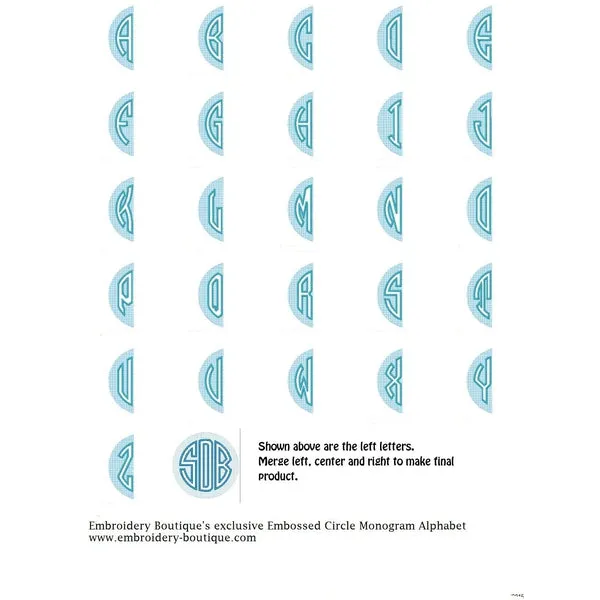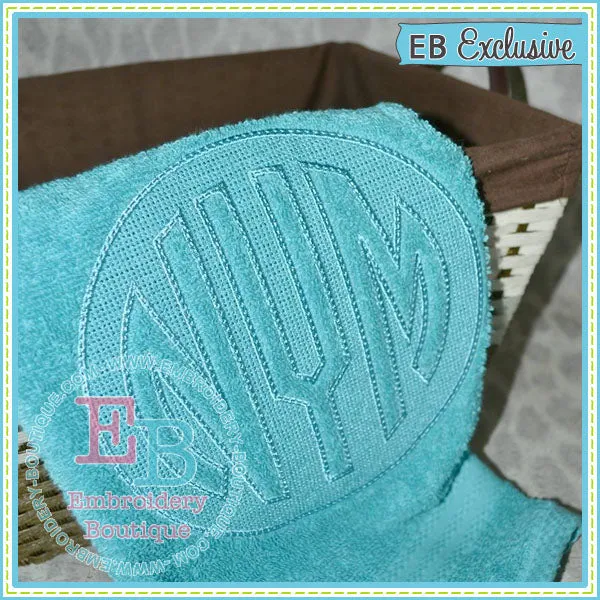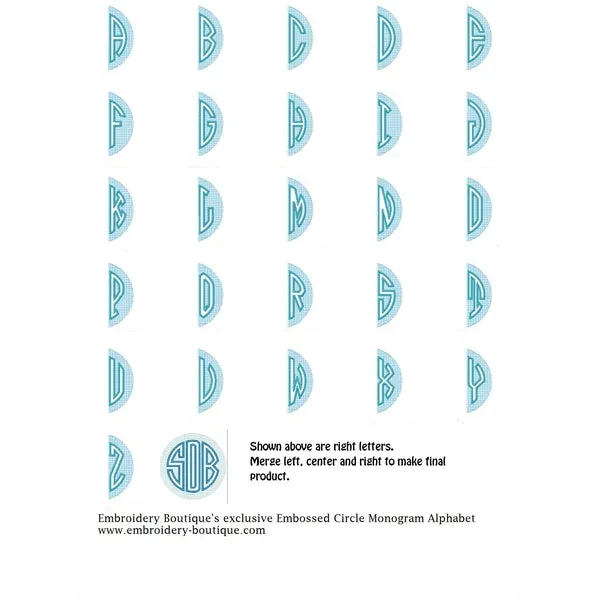
Embossed Circle Monogram Embroidery Font
Please note, this includes all 26 capital letters each in three positions left, center and middle with the patterned background.
Two sizes of each letter and two sizes of a satin circle frame are included.